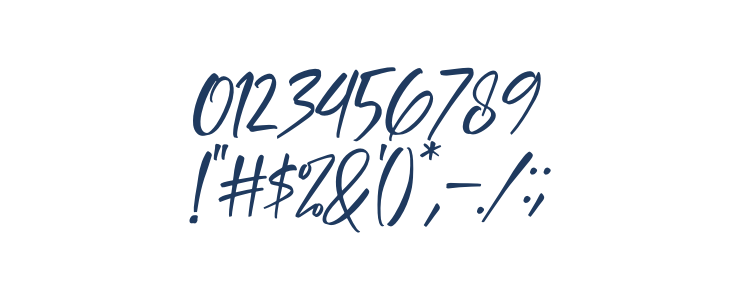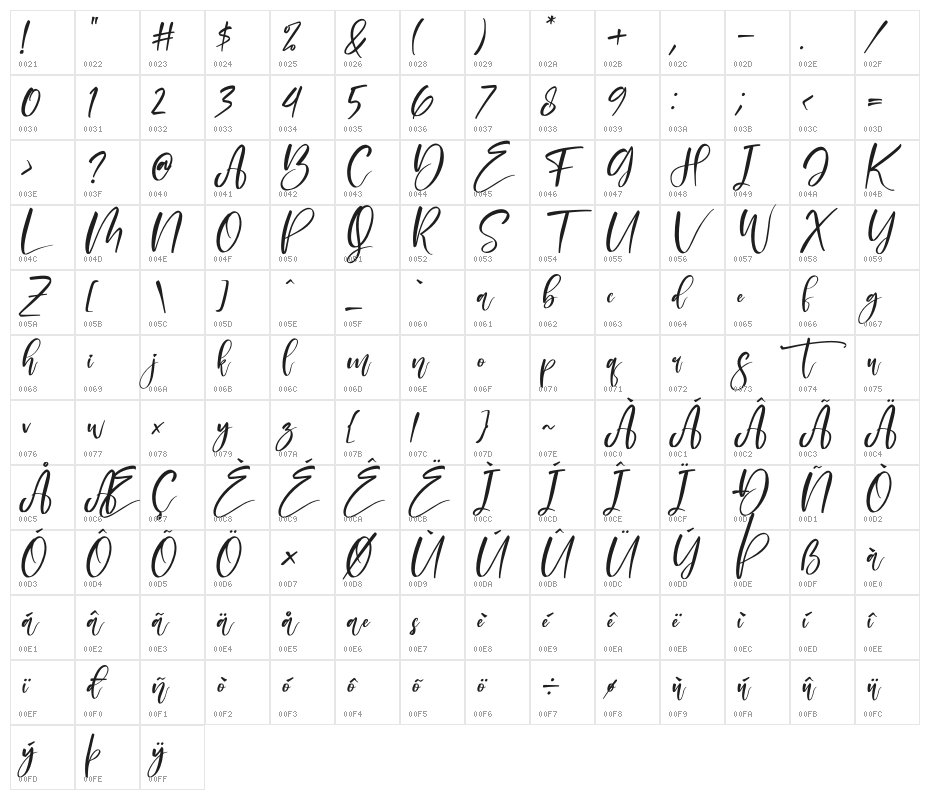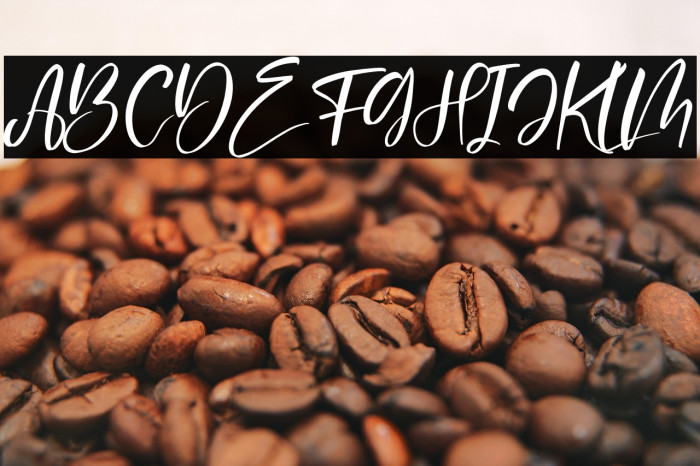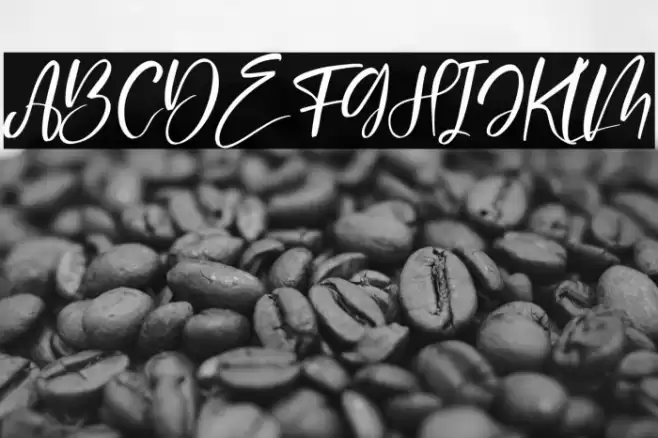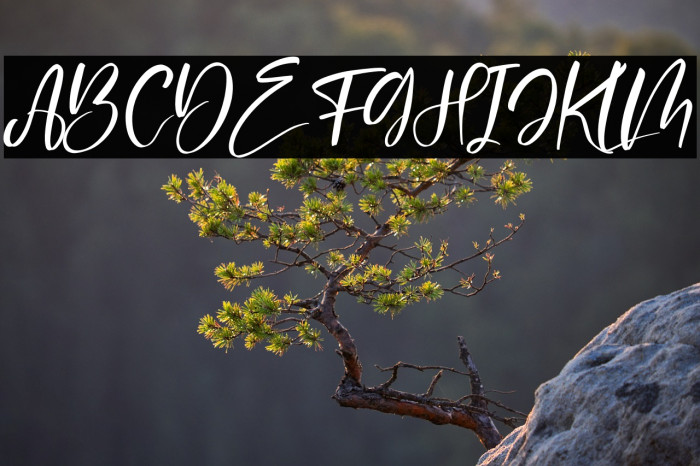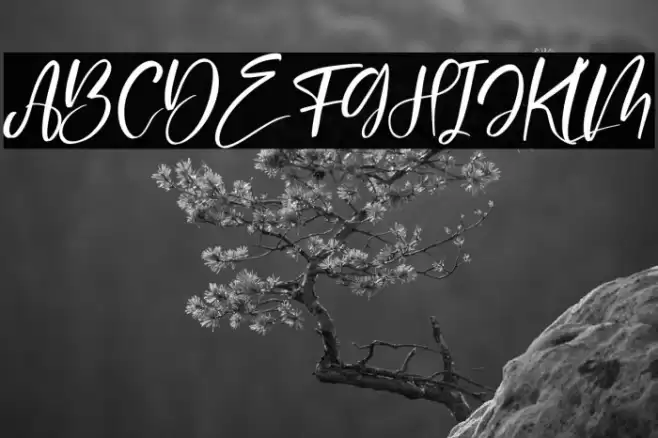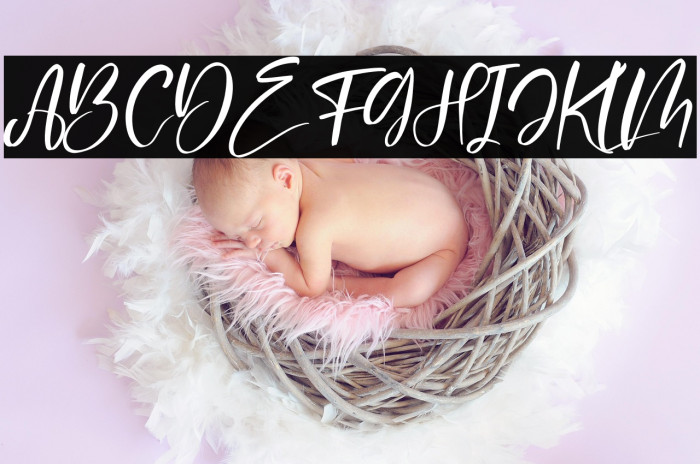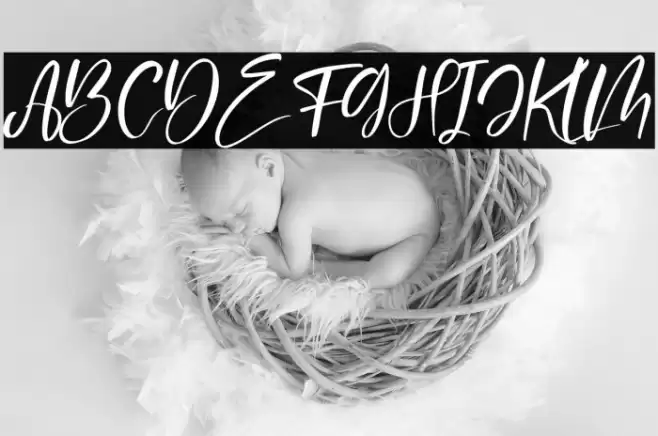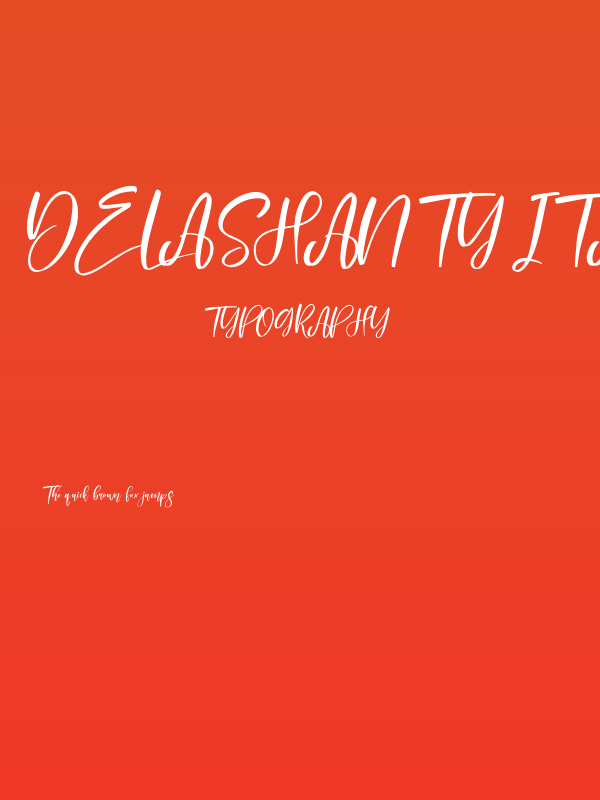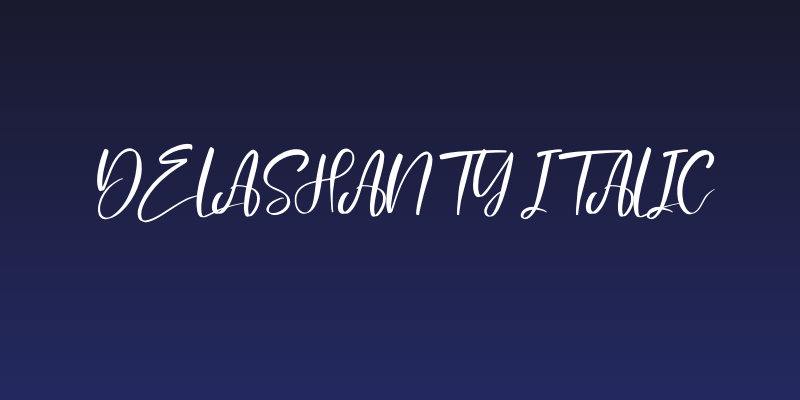
Delashanty Italic Font
Delashanty Italic Description
This font features an elegant and flowing script style with a distinctly handwritten appearance. The characters are connected, creating a seamless and fluid look that mimics natural handwriting. The strokes are varied, with some letters featuring thick downstrokes and thin upstrokes, adding a dynamic contrast to the overall design. The uppercase letters are bold and expressive, while the lowercase letters maintain a consistent flow, enhancing readability. The numerals and special characters follow the same stylistic approach, ensuring a cohesive appearance across all elements.
| Proposed Projects | Ideal for wedding invitations, greeting cards, branding projects, and any design requiring a personal touch. |